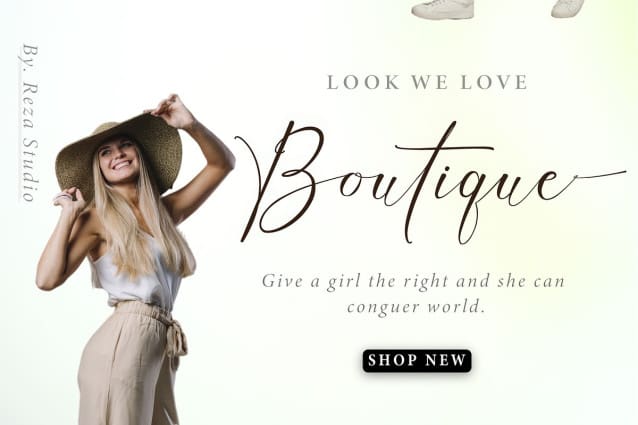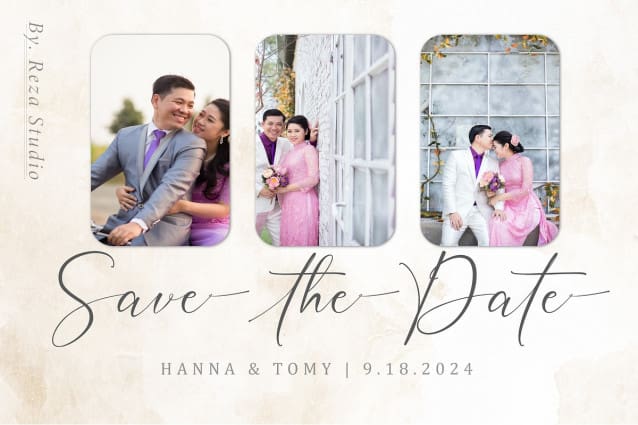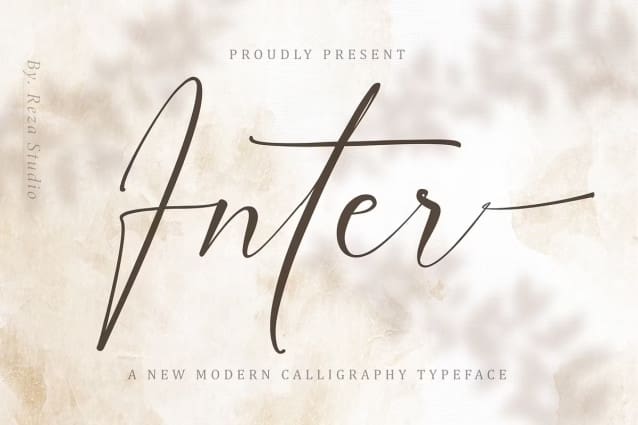
Inter Script Font
Inter Script Font is a calligraphy script font known for its exquisite and varied characters, blending classic decorative copper script elements with a modern twist. Designed with meticulous detail, it exudes stylish elegance and appeals as a typeface that is smooth, clean, feminine, sensual, glamorous, and notably easy to read due to its intricate letter connections. The font offers multiple viable style alternatives for many letters, enhancing its versatility.
Its classic style is particularly suited for a wide range of formal applications including invitations, labels, restaurant menus, logos, fashion design, makeup branding, stationery, novels, magazines, books, greeting cards, wedding invitations, packaging, labels, and various types of advertising.